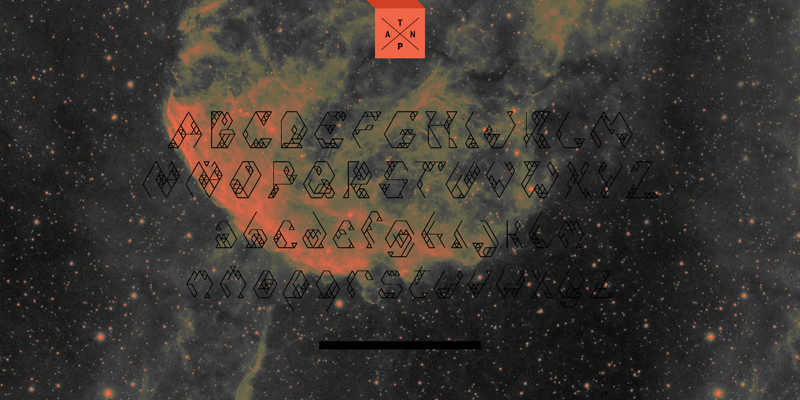
Iso by Julia Martinez Diana of Antipixel is a free decorative outlined display font with sharply angular letterforms. Its thin contours bend into tall, irregular silhouettes, and clusters of triangular facets interrupt many of the strokes. The result recalls folded wire, cut paper, and crystalline structures without settling into a regular geometric pattern.
Those faceted details can echo polygonal illustrations in science-fiction posters, experimental album artwork, and game graphics. In editorial design, it could shape feature openers about architecture or geometry, carrying the triangular motif into page graphics.